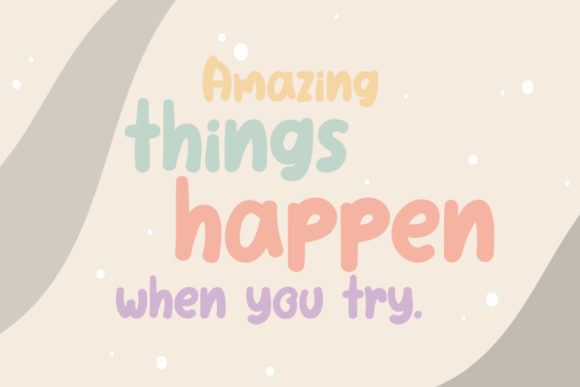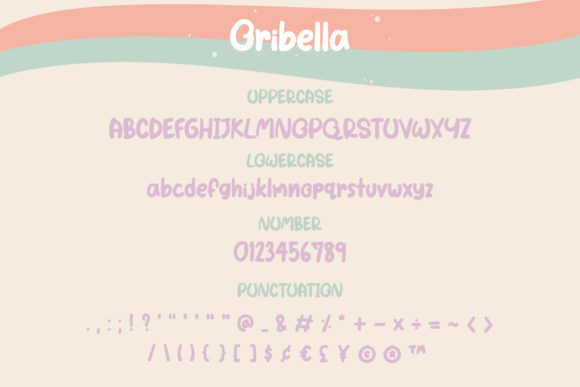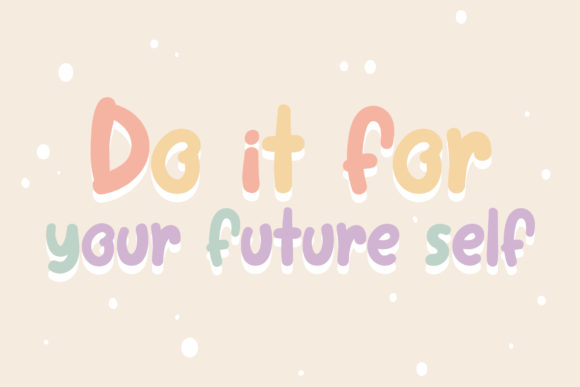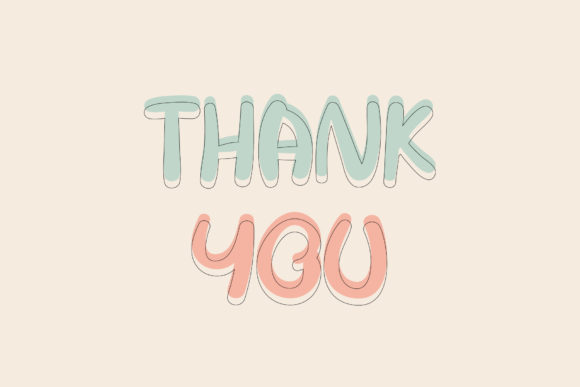
Oribella Font
About Oribella Font
Oribella is a cute handwritten font, created with the help of an outstanding brush pen. Whether you’re looking for fonts for Instagram or calligraphy scripts for DIY projects, this font will turn any creative idea into a true standout.